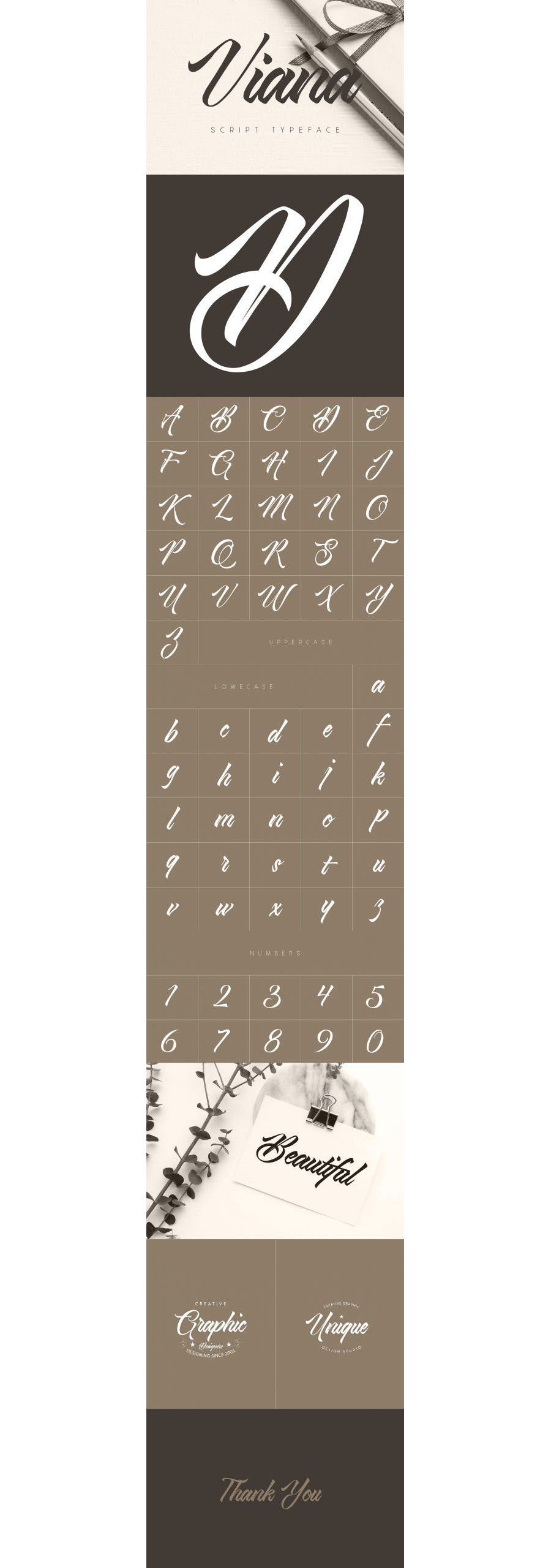
Viana Script Free Typeface
Viana Script Free Typeface handwriting calligraphic typeface is the latest freebie coming from Graphic Pear. Its curvy yet flow naturally lines are the main features of Viana Script. Moreover, it is crafted with attention hence it is suitable for headings, badges, editorial, print, and branding. So, go download now and make yourself some beautiful design!